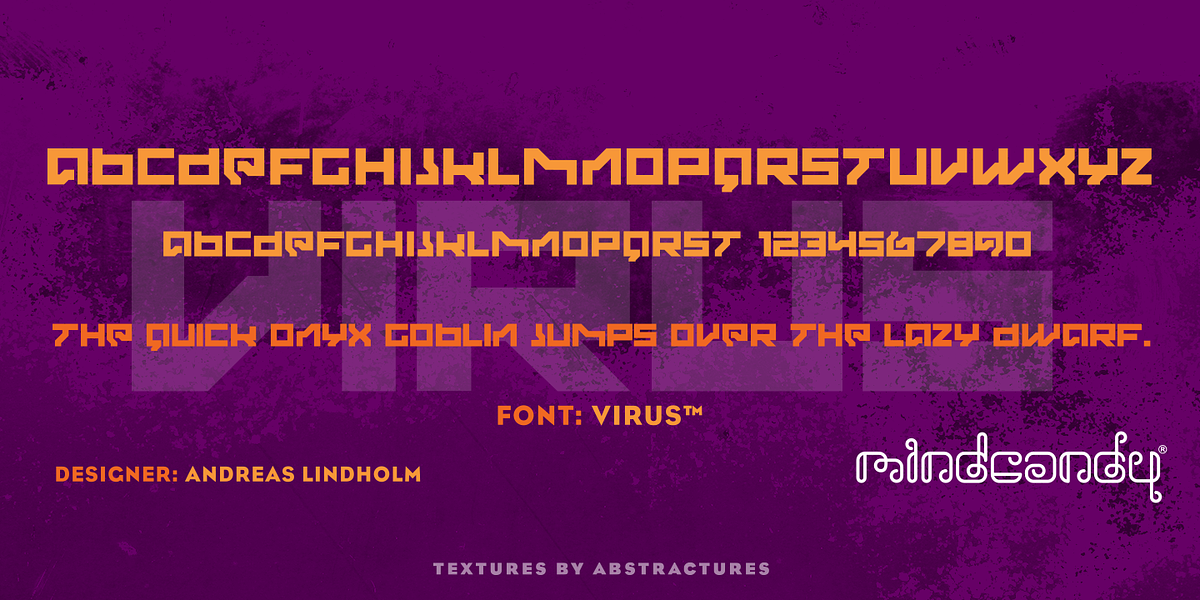
Virus™
This display font features a distinct retro aesthetic with its square letterforms and unicase design. Its playful and quirky personality makes it suitable for eye-catching branding, headlines, and display text.